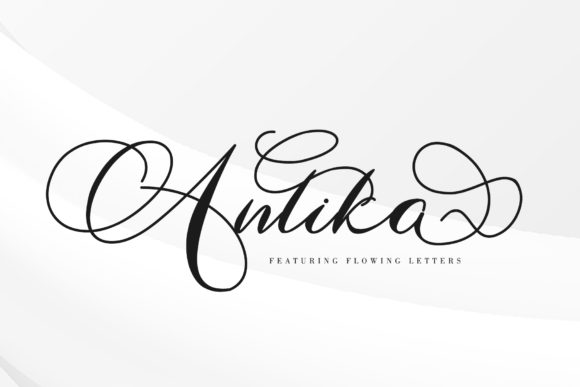
Unleash the captivating power of Antika, a script font that dances across your screen with effortless elegance. Its flowing letters, reminiscent of a gentle breeze, will add a touch of whimsical charm to your projects.
With Antika, your designs will shimmer with individuality. Its unique curves and delicate strokes create a visual feast that captures the eye. Whether you're crafting logos, invitations, or social media graphics, Antika will transform your words into works of art.
Step into a world of creativity where your imagination knows no bounds. Antika's versatility knows no limits. It seamlessly adapts to a myriad of design styles, from classic to contemporary. Its graceful lines lend a timeless charm to traditional projects, while its playful spirit adds a touch of modernity to cutting-edge designs.
With Antika, you'll discover a font that speaks to your soul. Its soft edges and sweeping strokes evoke a sense of warmth and connection. Your audience will feel the passion and care poured into every letter, creating an emotional bond that resonates deeply.
Don't settle for ordinary fonts that blend into the background. Embrace the extraordinary with Antika, a font that commands attention and leaves a lasting impression. Let your designs blossom with beauty and originality, and watch as your projects captivate and inspire.